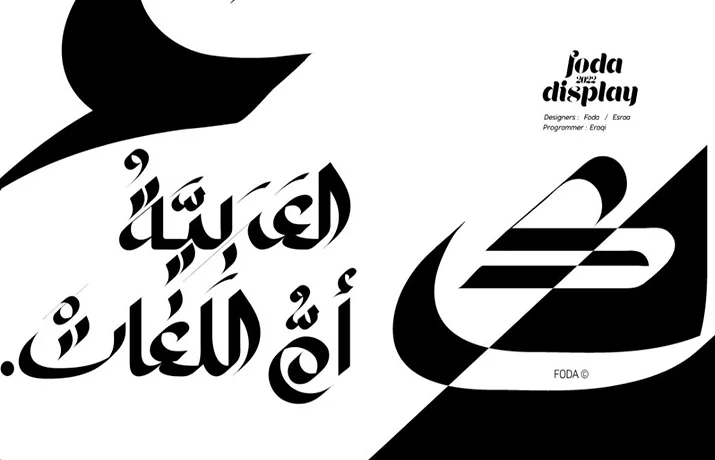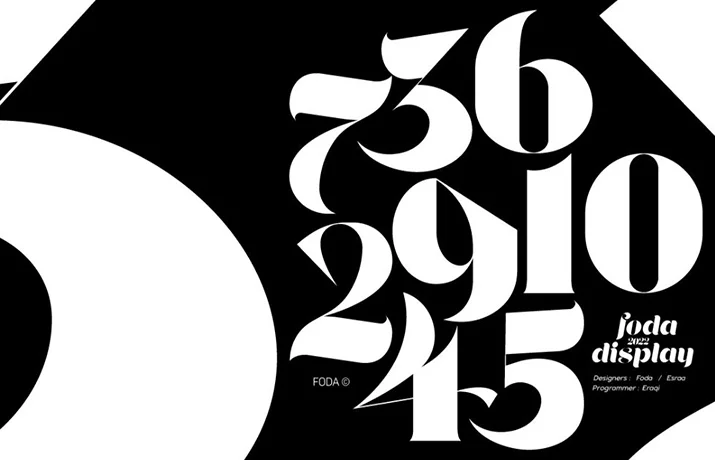
Foda Display is a stunning typeface by FoDa foundry that seamlessly blends the grace of calligraphy with modern design.
This typeface is a perfect choice for designers who want to create unique and visually appealing branding, packaging, advertising, and social media designs.
Foda Display is designed for both Latin and Arabic scripts, making it a versatile choice for designers who need to incorporate both languages in their designs. The elegant curves and unique shapes of the typeface create a distinct and memorable look that can help your brand stand out in a crowded marketplace.
Whether you’re designing a poster, a wedding invitation, or a social media post, Foda Display can add a touch of elegance and sophistication to your design.
| Font Name: | Foda Display Font Family |
| Style: | Arabic, Modern, Display |
| Font Designer: | Ahmed Eraqi, Nohamad Foda, Esraa Amer |
Foda Display font is a versatile typeface that can be used in a variety of design applications. Here are some usage examples:
Branding: Foda Display can be used in logos, packaging, and other branding materials to create a unique and memorable look for your brand.
Advertising: The bold, eye-catching design of Foda Display makes it perfect for advertising campaigns, whether it’s print ads or digital ads.
Social media: Foda Display is a great choice for social media designs, such as Instagram posts, Facebook ads, and more.